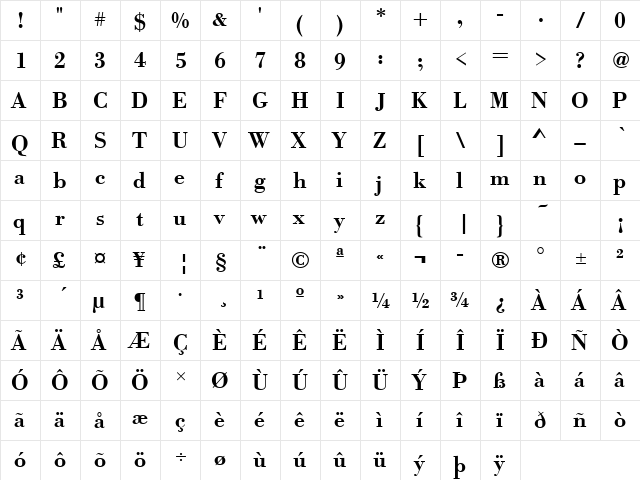
BodoniIbmTMed Regular
Design Context for BodoniIbmTMed Typeface
BodoniIbmTMed offers clean, dependable letterforms without strong stylistic allegiance, making it a practical choice for designers who need flexibility.
Pro Tip: Use BodoniIbmTMed in both headline and body roles to test its range before committing to a single application.